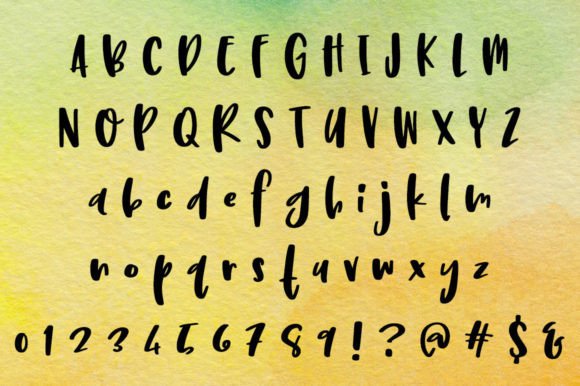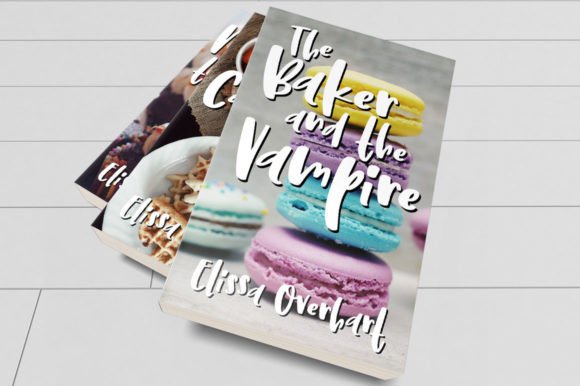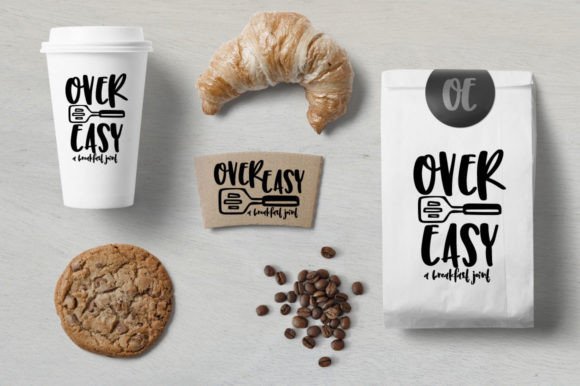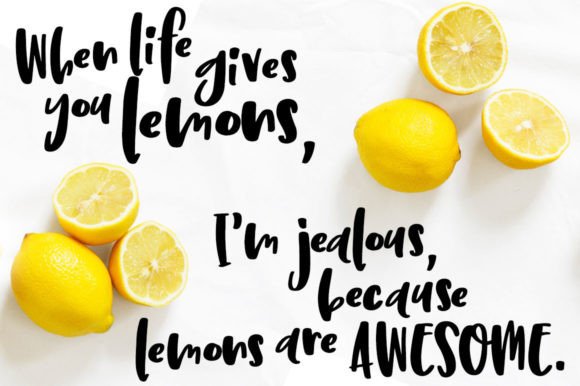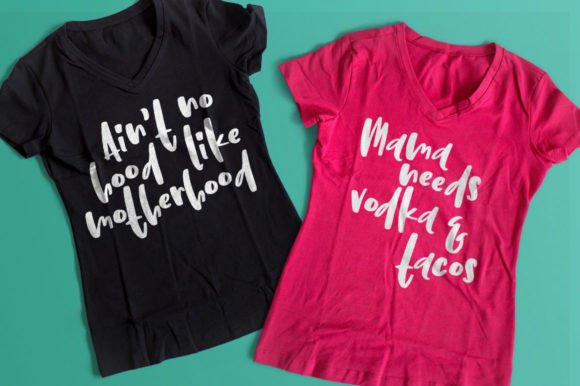
Limetta Font
About Limetta Font
Explore the whimsical world of Limetta, a delightful hand-lettered font that effortlessly blends casual flair with a touch of playfulness. Whether you’re working on crafting projects, logo design, signage, or any creative endeavor, Limetta brings a unique charm to your work.
Limetta’s lowercase characters feature a bouncing baseline, adding a dynamic and fun element to your text. The uppercase letters carry a hot hand-lettered look, while the overall font showcases varying line weights for a visually appealing design.
Here’s what you can expect with Limetta:
– **Character Set:** Includes uppercase A-Z and lowercase a-z for comprehensive coverage.
– **Numerals:** Numbers 0-9 are provided, maintaining the font’s consistent style.
– **Punctuation:** Limetta offers a generous selection of punctuation marks, enhancing its versatility in various design applications.
– **Language Support:** With over 350 characters, Limetta extends its support to Latin-1, Latin-A, Latin-B, and Latin Extended characters. This broad language coverage encompasses languages such as English, French, Spanish, German, Polish, Romanian, Portuguese, Swedish, Finnish, Norwegian, Danish, Esperanto, Czech, Dutch, Welsh, Filipino, Turkish, and more.
– **Double-Letter Ligatures:** Elevate your design with 15 lowercase double-letter ligatures, providing additional creative possibilities.
Limetta is not just a font; it’s an invitation to infuse your designs with character and personality. Whether you’re aiming for a lighthearted vibe or a more casual aesthetic, Limetta offers the versatility you need. Elevate your creative projects with the distinctive charm of Limetta.